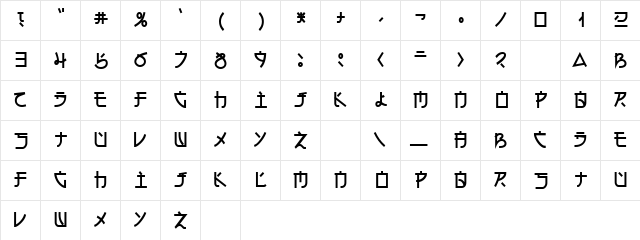
Electroharmonix Regular
Design Context for Electroharmonix Typeface
Electroharmonix is a composed and adaptable typeface that performs quietly and consistently across a wide range of design contexts.